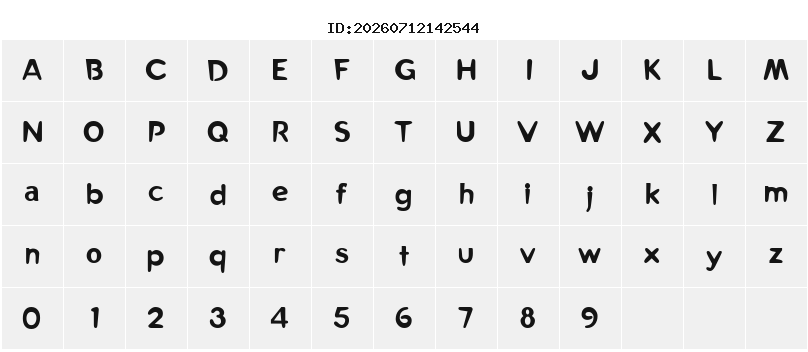
RayGun Preview
• Font Name: RayGun
• Full Font Name: RayGun
About RayGun.ttf
RayGun.ttf is a modern, elegant sans-serif font designed for ultimate readability and visual harmony. Perfect for branding, headlines, web design, and print materials.